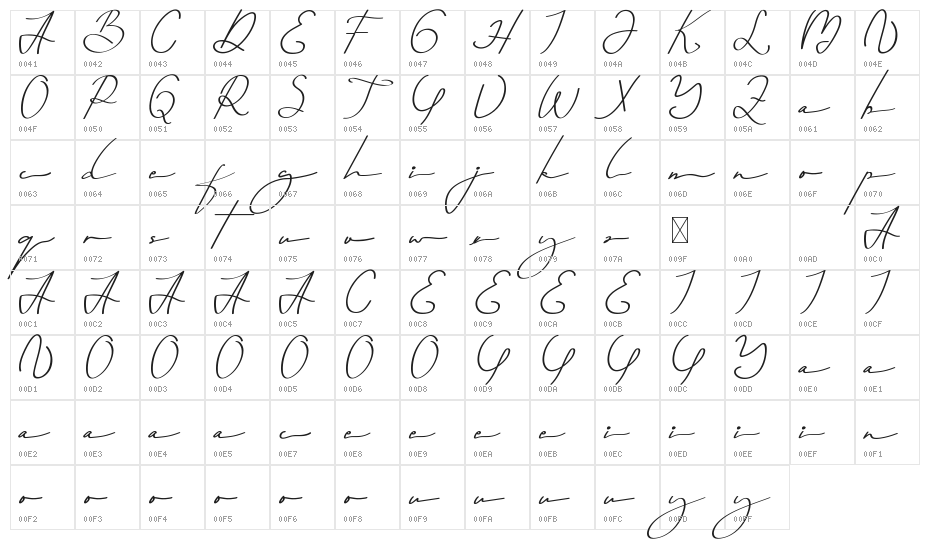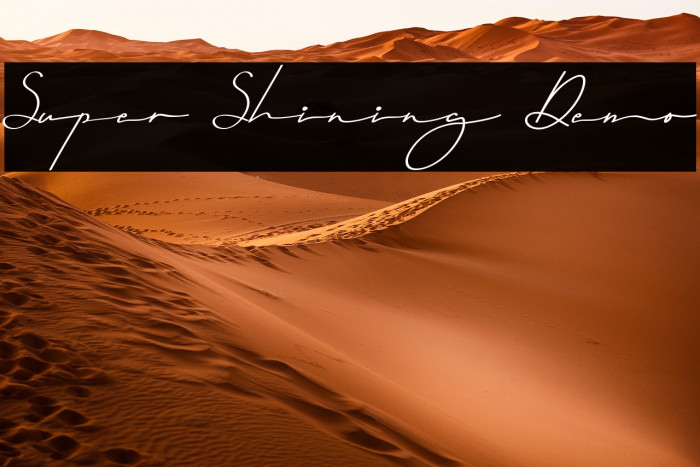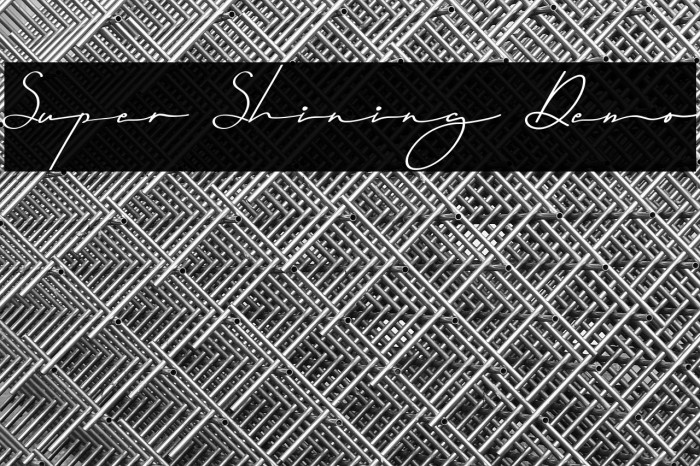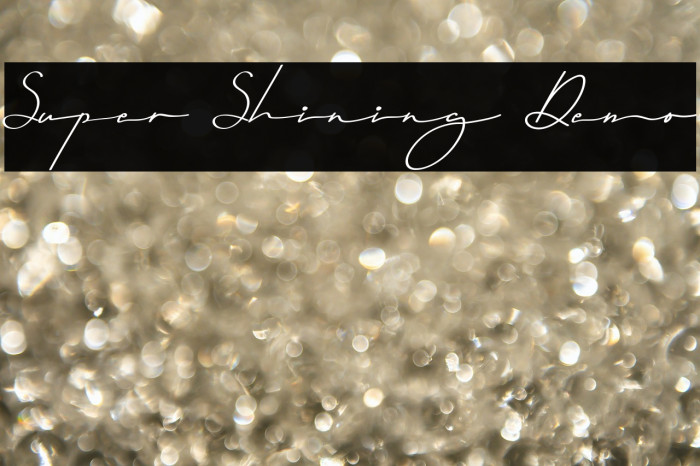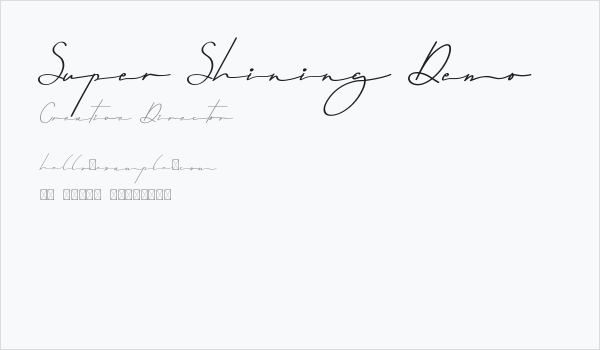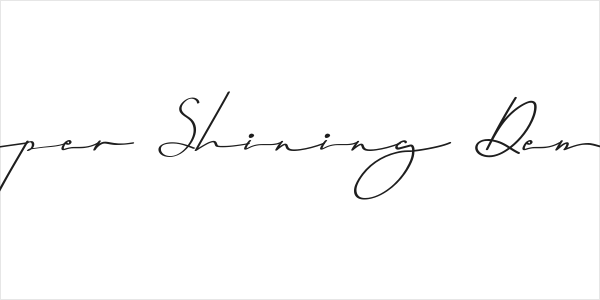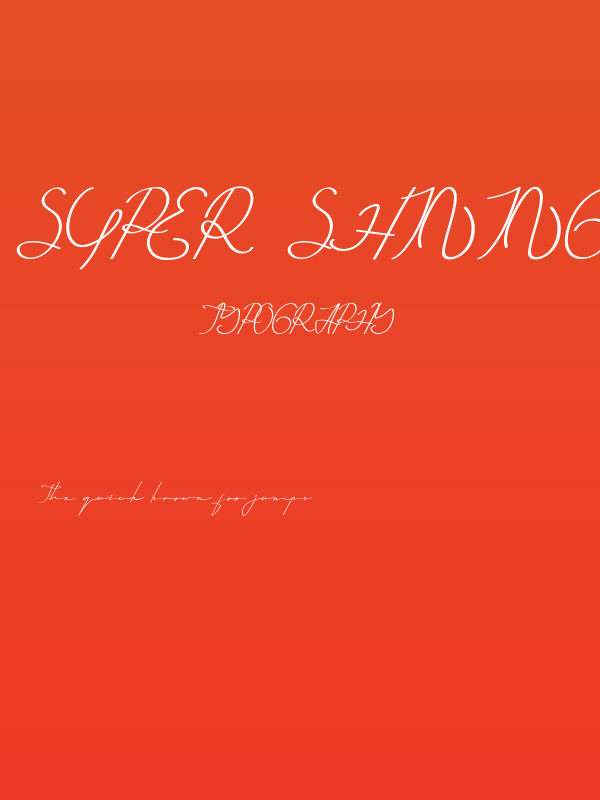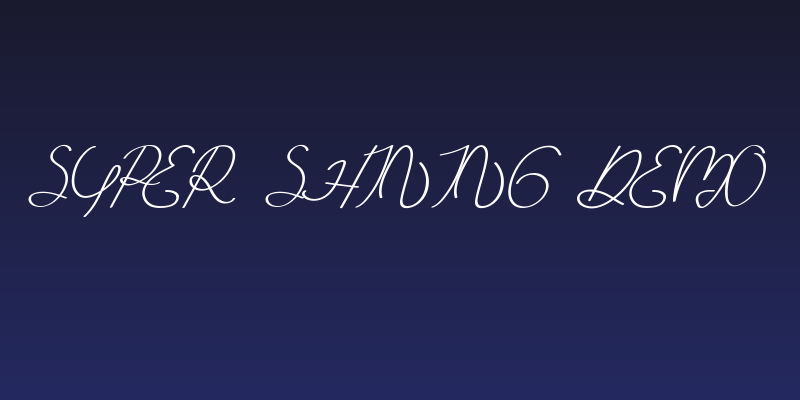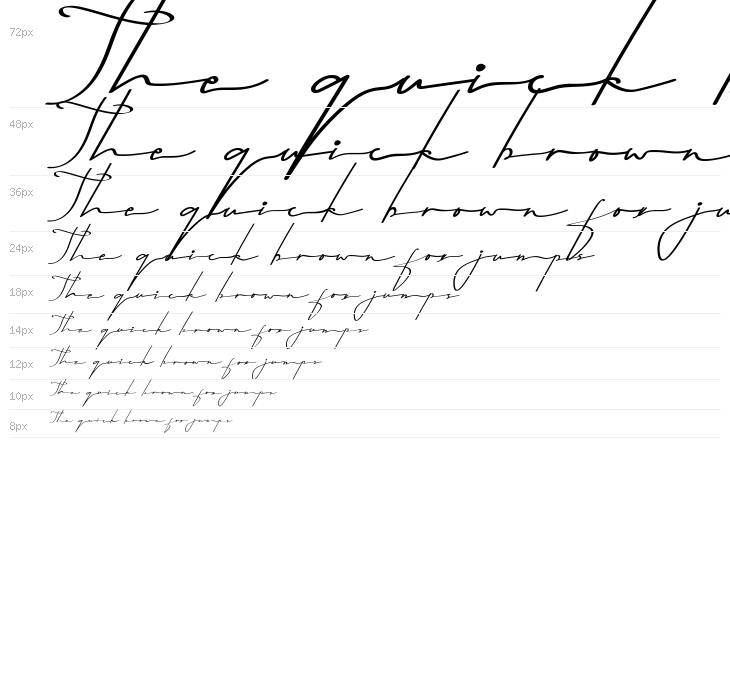
Super Shining Demo Font
Super Shining Demo Description
This elegant script font features a flowing, cursive style with graceful loops and swirls. The characters are connected, creating a seamless and fluid appearance. The strokes are delicate, with a consistent thinness that adds to the refined and sophisticated look. The uppercase letters are slightly more ornate, with extended flourishes that enhance their decorative appeal. The lowercase letters maintain a smooth and continuous line, contributing to the overall harmony of the design. This font exudes a sense of elegance and charm, making it ideal for projects that require a touch of sophistication.
| Proposed Projects | Ideal for wedding invitations, elegant branding, personal stationery, and romantic quotes. |